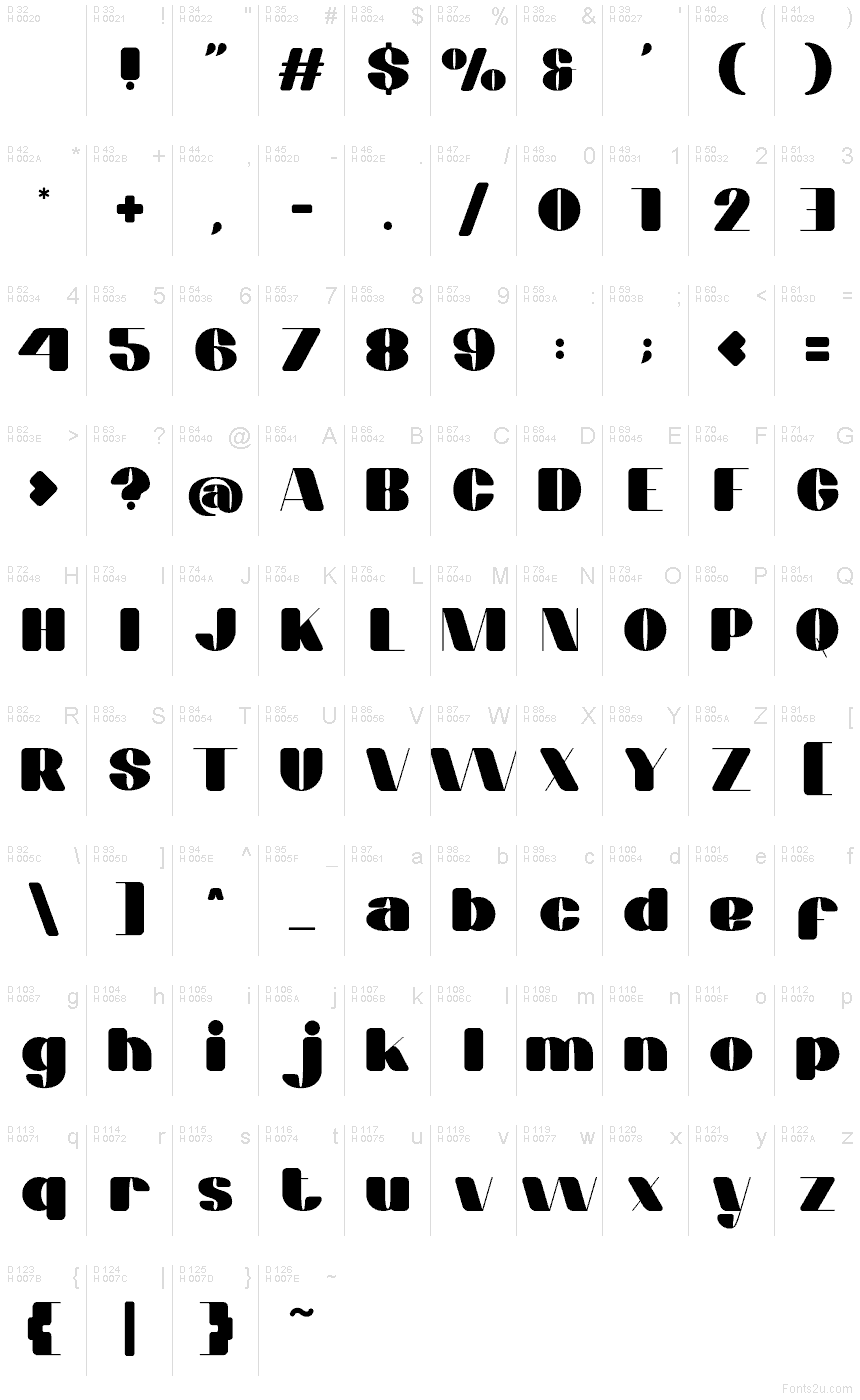
Malow
Malow font by PutraCetol Studio is a free display typeface with a retro style and expanded width. The letters are large, elegant, playful, and the overall design comes with inspirational influences from sans-serif characteristics and modernist design. With sleek lines, smooth curves, a touch of geometric elements, Malow gives you both clarity and versatility.
Use this typeface in designs for film posters, product packagings (especially food packaging), signs, ads on banners or social media platforms etc. Titel texts in books will also look fabulous when given this typographic treatment! Try it on your clothing items or simply apparel-based blogs/websites.